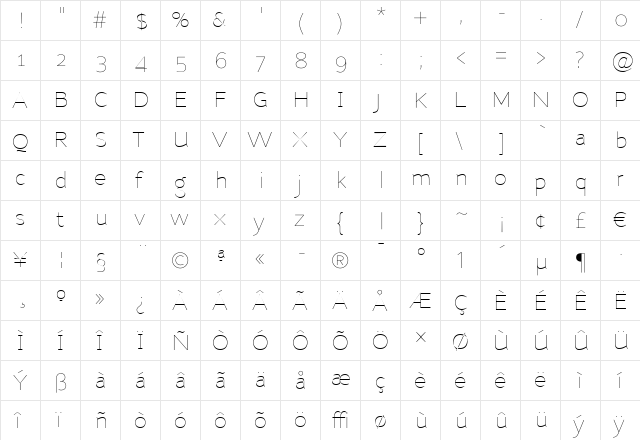
Nubian-Thin Thin Font Preview
Nubian-Thin Thin
Nubian-Thin Thin Font Details
| Style | Thin |
| Foundry | \ G Type Designed and digitized by Nick Cooke |
Design Context for Nubian-Thin Typeface
Nubian-Thin offers clean, dependable letterforms without strong stylistic allegiance, making it a practical choice for designers who need flexibility. The delicate stroke weight brings airiness and refinement to layouts.